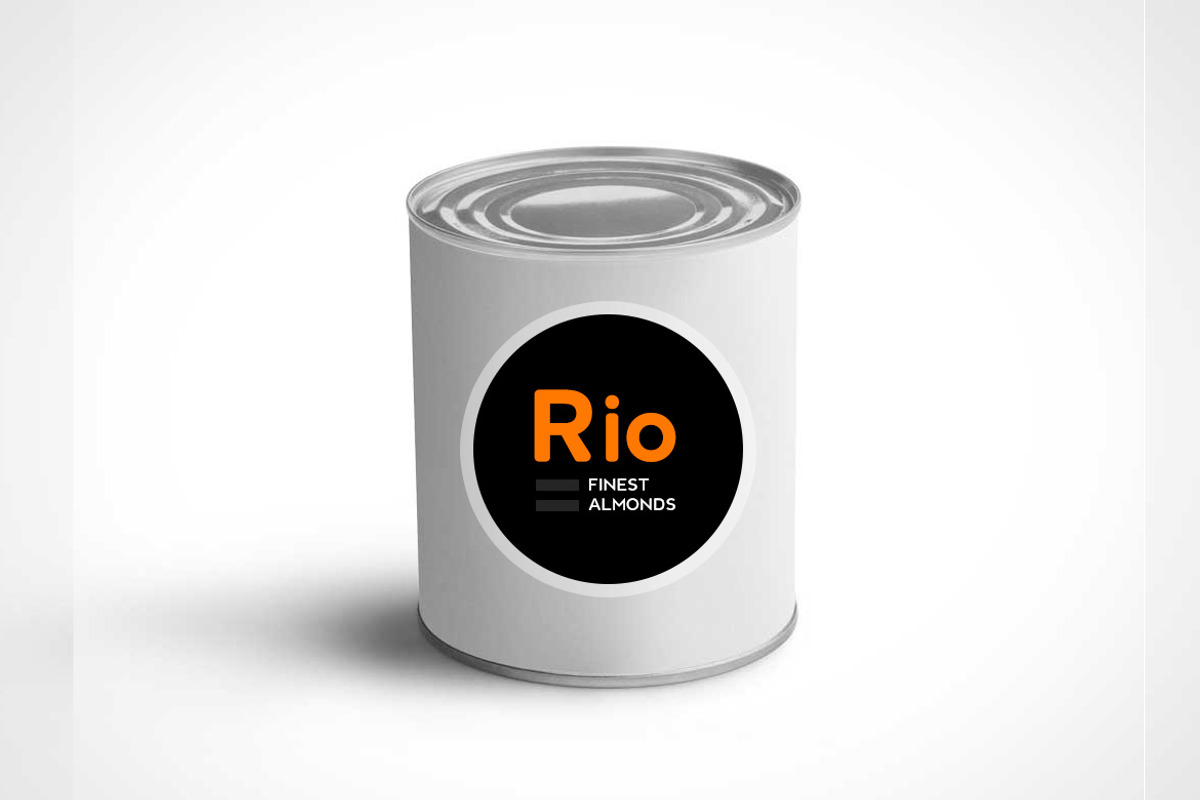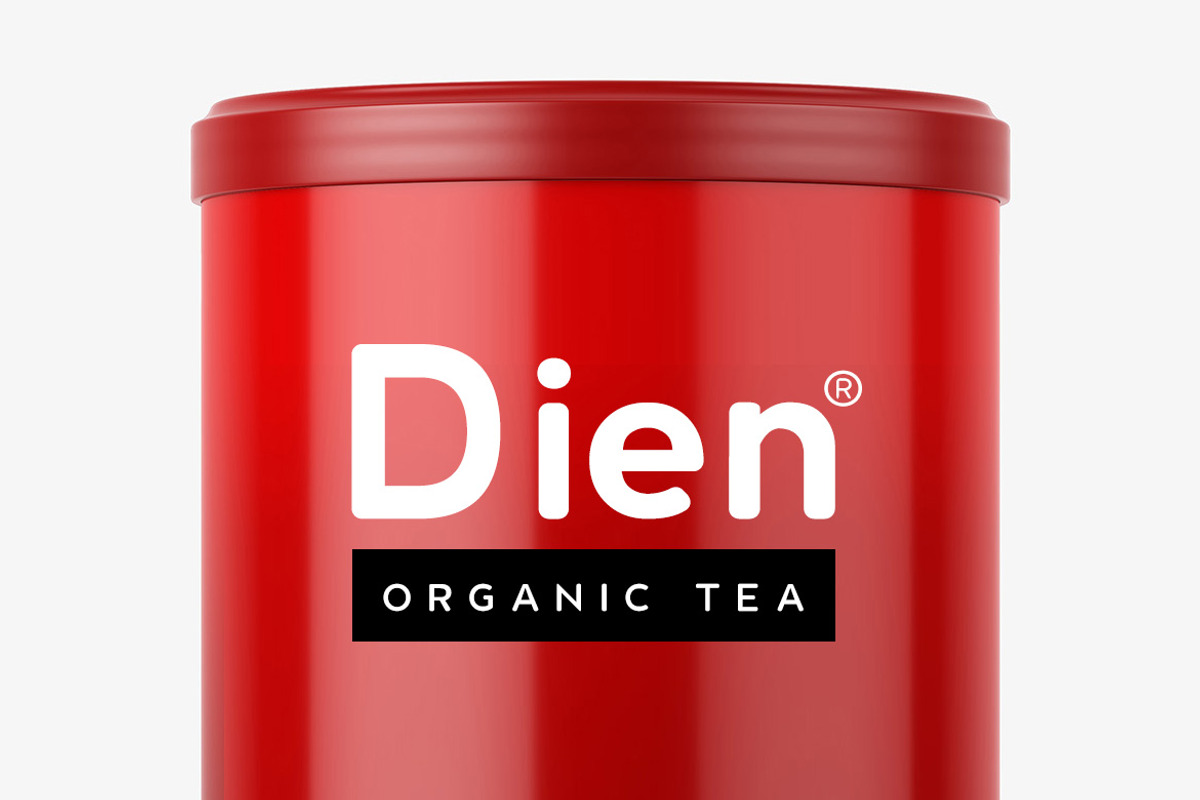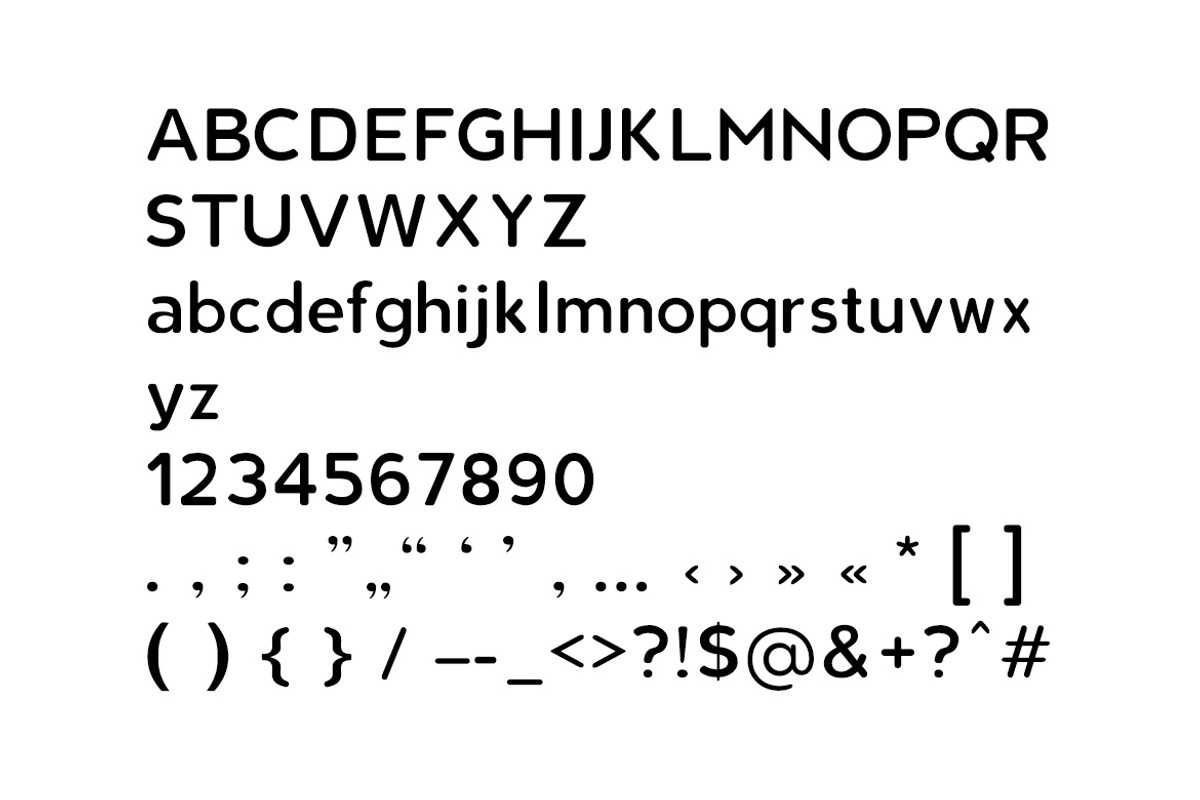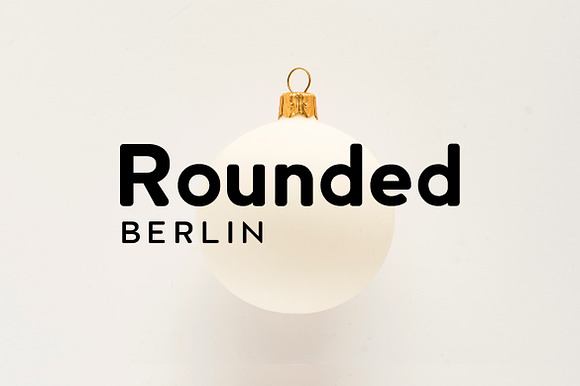
BERLIN ROUNDED - The Font Family
This is the rounded variation of our popular typeface Berlin.
Why BERLIN ROUNDED - The Font Family is worth a look
BERLIN ROUNDED - The Font Family by Designova® fits naturally into Branding, posters, packaging, typography.